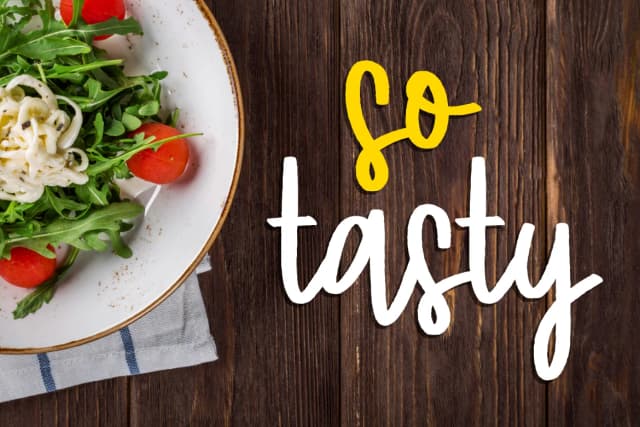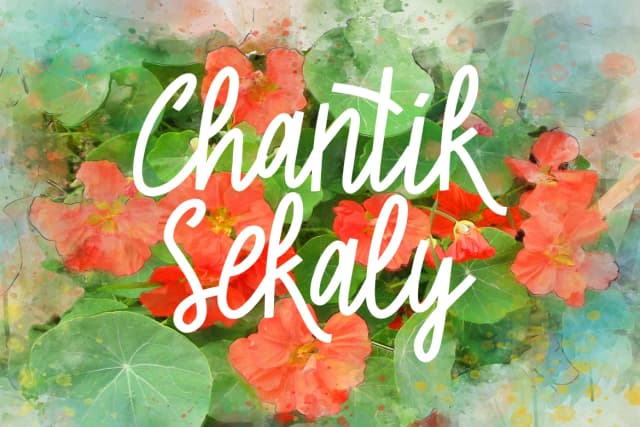
Happy Ocean by LebahStudio is a warm, handwritten script that captures the friendly, organic feel of hand-drawn letterforms with genuine character. With its flowing lines and approachable design, this font brings a human touch and visual warmth to projects that need personality. The generous weight and well-balanced letterforms make it legible at display sizes, making it a natural choice for headlines and focal text areas.
This expressive script brings the personal connection that creative projects often need to resonate with viewers. It works beautifully on wedding invitation suites, adding charm and intimacy to milestone celebrations and special announcements. Greeting card designs benefit from its welcoming nature, while children's book covers find the perfect match in its playful curves and organic rhythm. Event signage and party graphics take on a festive quality with Happy Ocean's character, making it ideal for birthday announcements, seasonal celebrations, boutique packaging designs, and social media graphics that want to feel accessible and genuine rather than corporate or stiff.
The font's consistent spacing and readable construction make it practical for both print and digital applications, ensuring your message comes through clearly whether displayed large on environmental signage or at smaller scales in web graphics and marketing materials. Get Happy Ocean on Creative Fabrica and add warmth and authenticity to your design work.
Happy Ocean Font is a script font that shines as a display or heading face. Pair it with a clean sans-serif or serif font for body text β the contrast creates a clear hierarchy while the two styles stay balanced and easy to read.
Happy Ocean Font
by LebahStudio